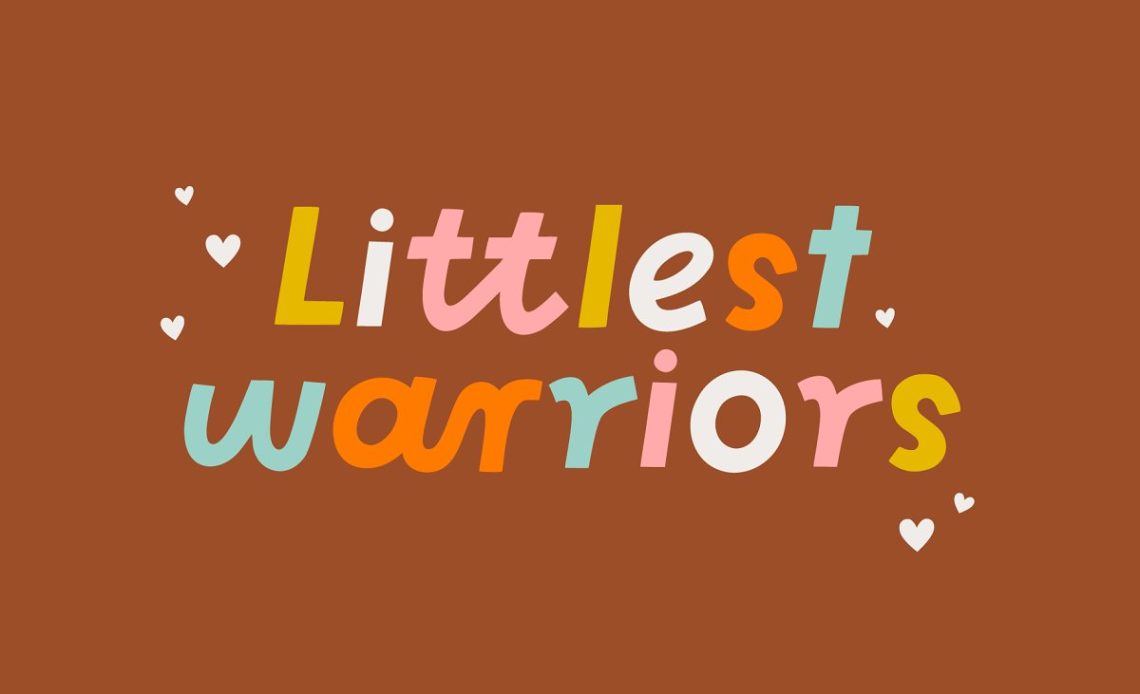
Looking for a font that will make your project stand out? Look no further than Tiny Titans, the best font for Evernote notes! Created by Monika, this script font is the perfect way to add warmth and charm to any design project. With plenty of ligatures and stylistic alternatives, you'll have everything you need to create stunning posters, logos, greeting cards, packaging, and so much more.
Tiny Titans is a heartwarming hand-drawn display font that has been designed and kerned with care and love to make using it a breeze. Its charming and warm character will help you give your project a truly unique feel that your audience won't soon forget.
One of the best features of Tiny Titans is its many stylistic alternates. This means you can choose the perfect look for your project, whether you want a bold and striking font or a more delicate and intricate design. Plus, with multilingual support and accented characters, Tiny Titans is perfect for international designers who want to reach a global audience.